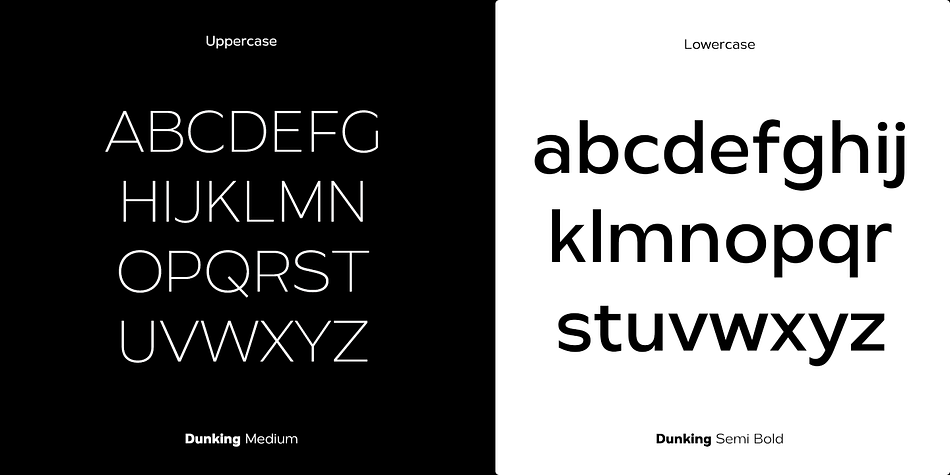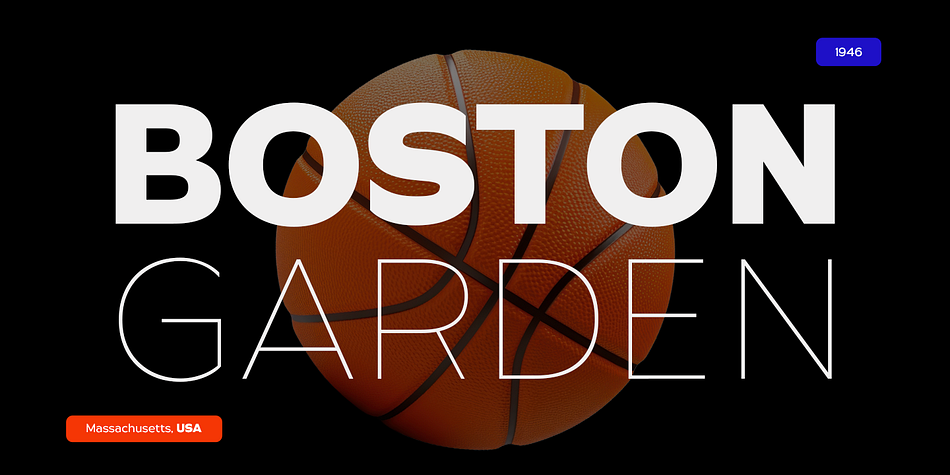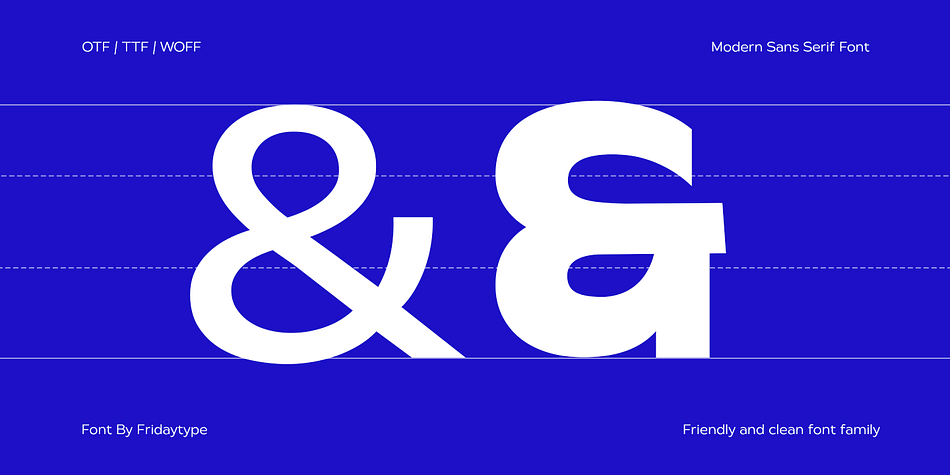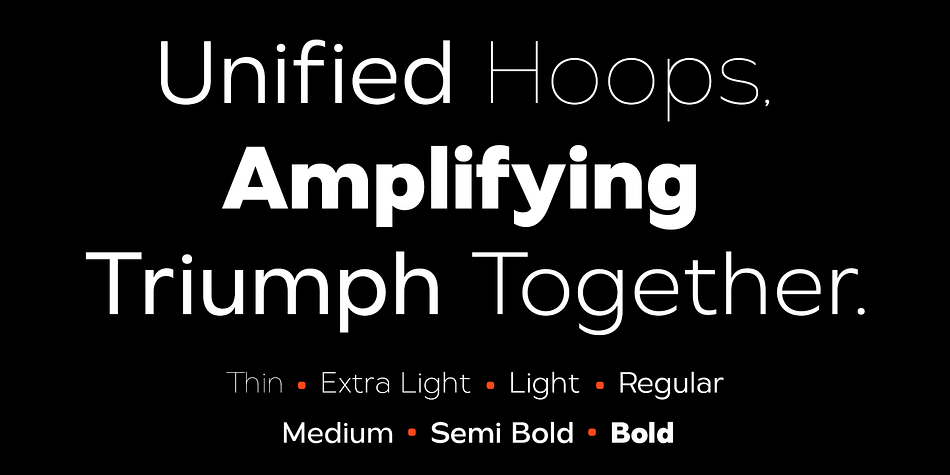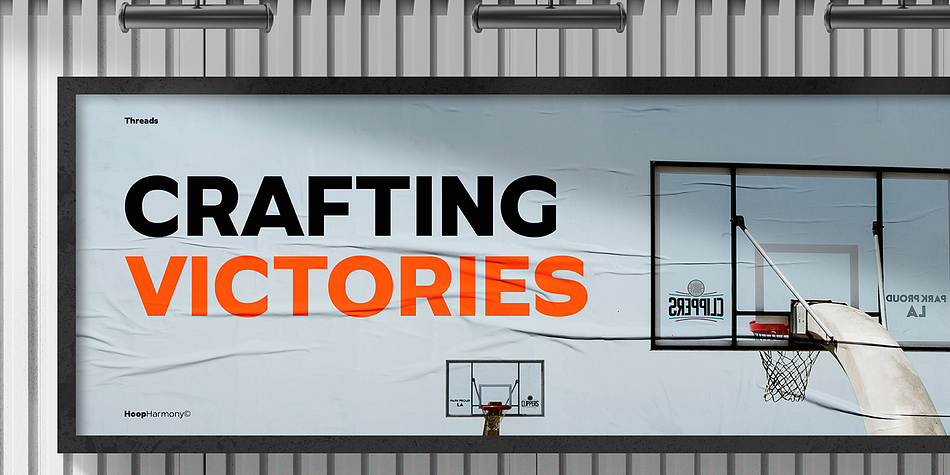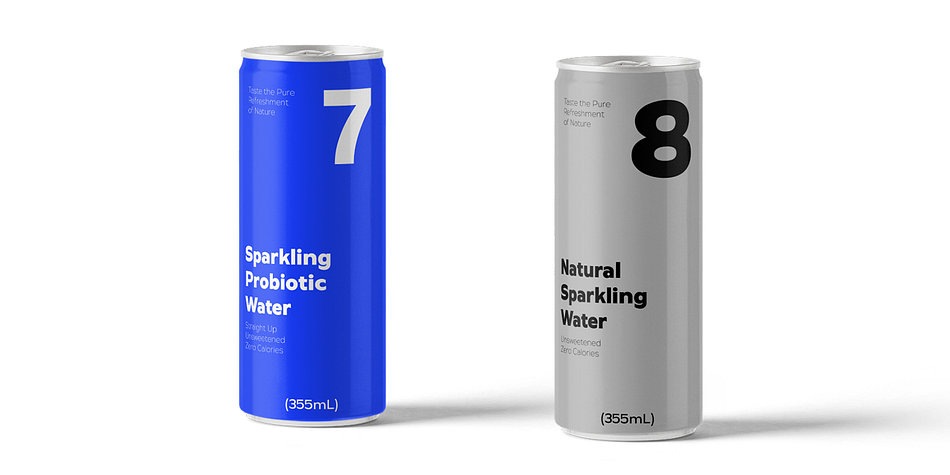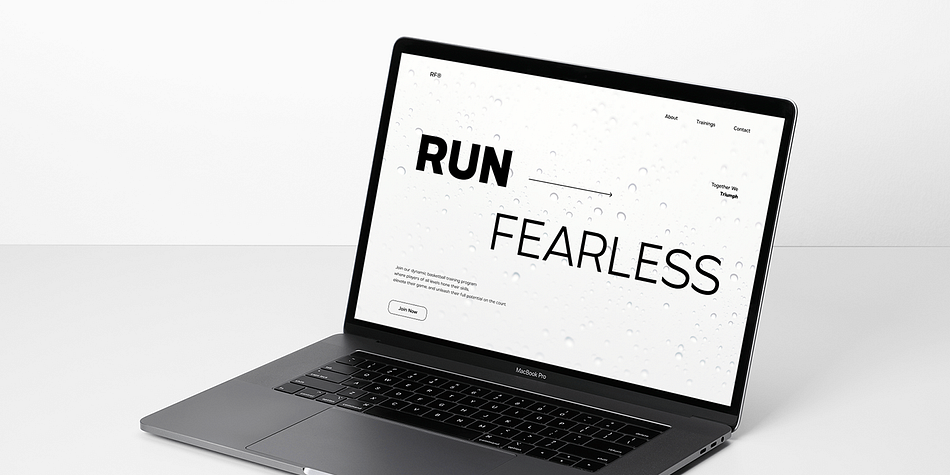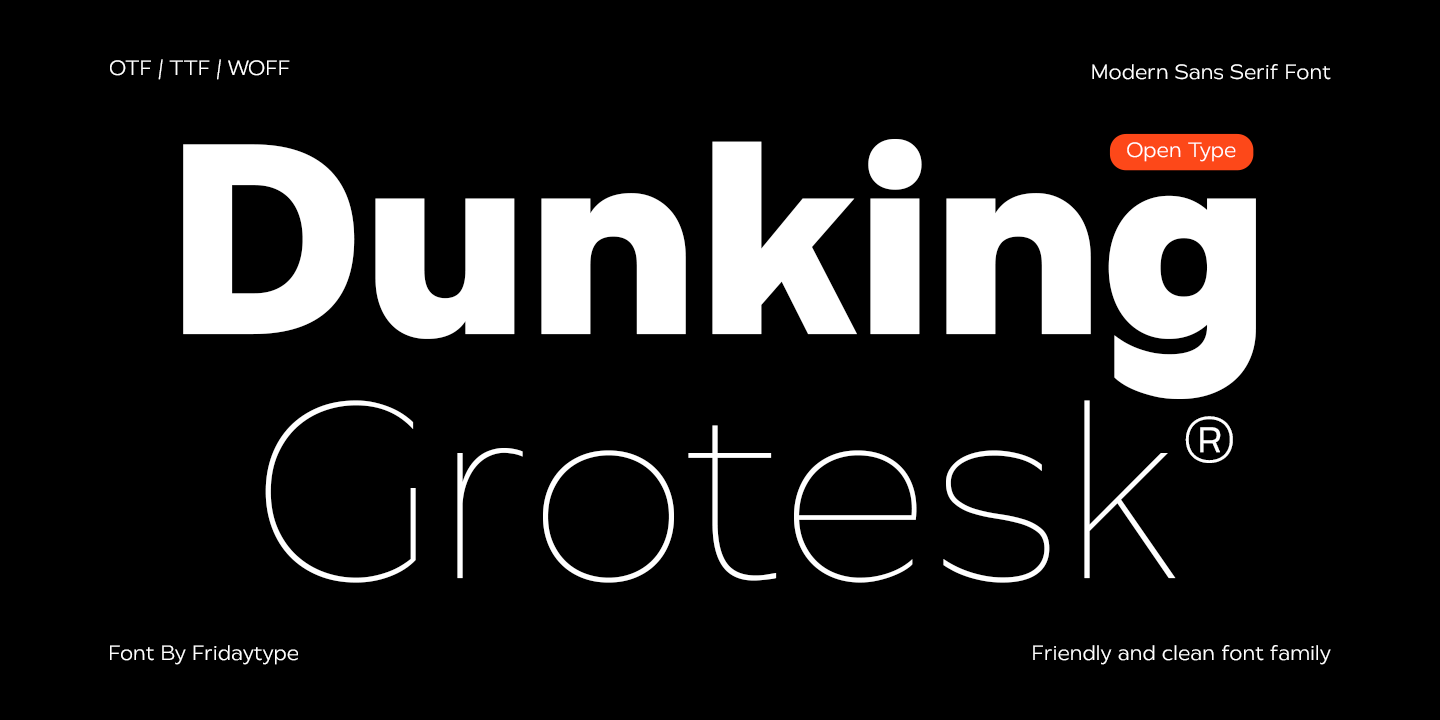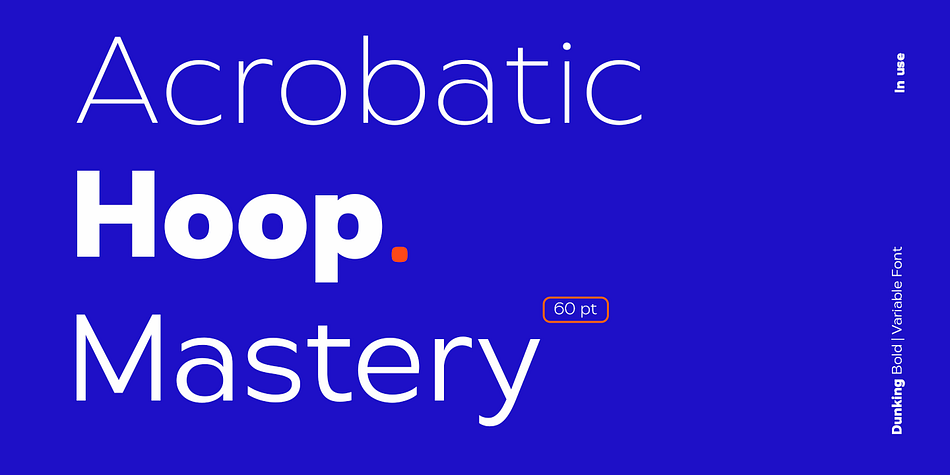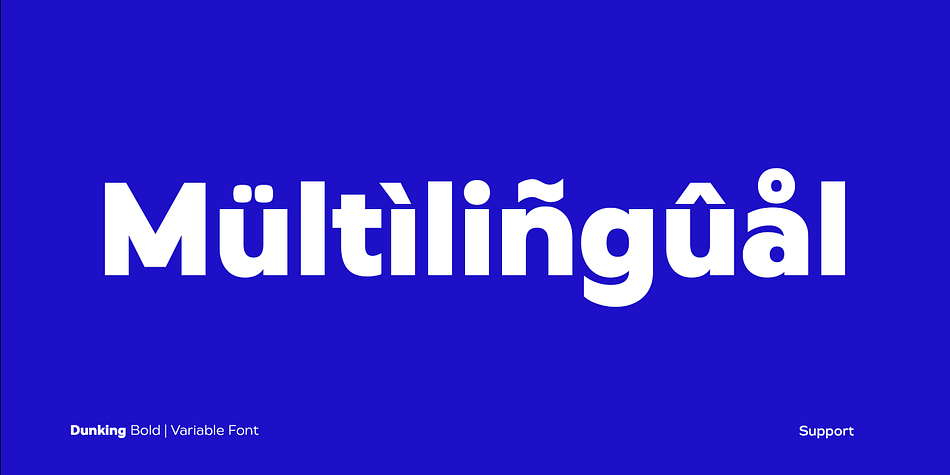
Dunking Grotesk
Dunking Grotesk is a sans serif font family. This typeface has seven styles and was published by Fridaytype.
Dunking is characterized by its fresh, clean geometry and modern feel. It has a refreshing touch, providing a supportive impression. This versatile typeface can be used in magazines, posters, branding, websites, and more.
Feature:
7 Styles, 7 Weights
OpenType Features
Precise Kerning
Variable Format
International characters (Multilingual)